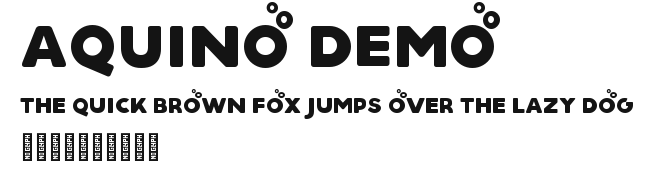
• Font Name: Aquino Demo
• Full Font Name: Aquino Demo
• Designer: Philip Trautmann
• Manufacturer: phitradesign
About Aquino Demo.ttf
Aquino Demo.ttf is a modern, elegant sans-serif font designed for ultimate readability and visual harmony. Perfect for branding, headlines, web design, and print materials.